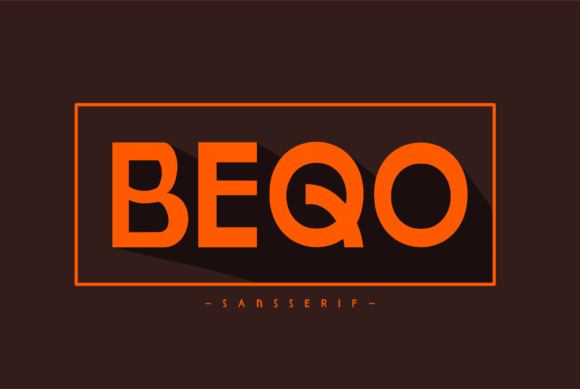
Introducing Beqo Font: The Ultimate Geometric Sans Serif for Modern Designs
Are you on the hunt for a font that can elevate your design game? Look no further than Beqo Font! This stunning, geometric sans serif font is perfect for designers and crafters who want to add a touch of modern elegance to their work. In this article, we’ll dive into the world of Beqo Font and explore its features, benefits, and uses.
A Modern and Elegant Font
Beqo Font is a gorgeous, geometric sans serif font that looks amazing in most any type of design. Its clean lines, precise curves, and balanced proportions make it a versatile font that can be used in a wide range of applications. Whether you’re designing a logo, brochure, website, or social media post, Beqo Font is sure to make a statement.
Pairing Well with Script and Cursive Styles
One of the standout features of Beqo Font is its ability to pair well with script and cursive styles. This font’s geometric simplicity provides a beautiful contrast to the flowing curves of script and cursive fonts, creating a visually appealing combination that’s sure to capture attention. Try pairing Beqo Font with a elegant script font for a wedding invitation, or with a bold cursive font for a fashion brand – the possibilities are endless!
Standing Alone in Print and Digital Designs
While Beqo Font pairs well with other fonts, it’s also strong enough to standalone in both print and digital designs. Its modern and elegant aesthetic makes it perfect for headlines, titles, and other display text, while its clear and legible design ensures that it remains readable even at smaller sizes. Whether you’re designing a business card, brochure, or website, Beqo Font is a great choice for adding a touch of sophistication and style.
So what makes Beqo Font so special? Here are just a few of its key features and benefits:
- Geometric sans serif design: Beqo Font features a clean and modern geometric sans serif design that’s perfect for adding a touch of elegance to your work.
- Versatile and adaptable: This font is versatile and adaptable, making it suitable for use in a wide range of applications, from print and digital designs to logos and branding.
- Pairs well with script and cursive styles: Beqo Font pairs beautifully with script and cursive styles, creating a visually appealing combination that’s sure to capture attention.
- Strong and standalone: This font is strong enough to standalone in both print and digital designs, making it perfect for headlines, titles, and other display text.
- Clear and legible: Beqo Font features a clear and legible design that ensures it remains readable even at smaller sizes.
Uses and Applications
So what can you use Beqo Font for? The possibilities are endless! Here are just a few ideas to get you started:
- Logos and branding: Beqo Font is perfect for creating modern and elegant logos and branding materials.
- Print designs: This font is great for use in print designs, such as business cards, brochures, and posters.
- Digital designs: Beqo Font is also suitable for use in digital designs, such as websites, social media posts, and email marketing campaigns.
- Headlines and titles: This font is perfect for use in headlines and titles, adding a touch of sophistication and style to your work.
In conclusion, Beqo Font is a stunning geometric sans serif font that’s perfect for designers and crafters who want to add a touch of modern elegance to their work. Its clean lines, precise curves, and balanced proportions make it a versatile font that can be used in a wide range of applications. Whether you’re designing a logo, brochure, website, or social media post, Beqo Font is sure to make a statement. So why wait? Give Beqo Font a try today and see the difference it can make in your designs!